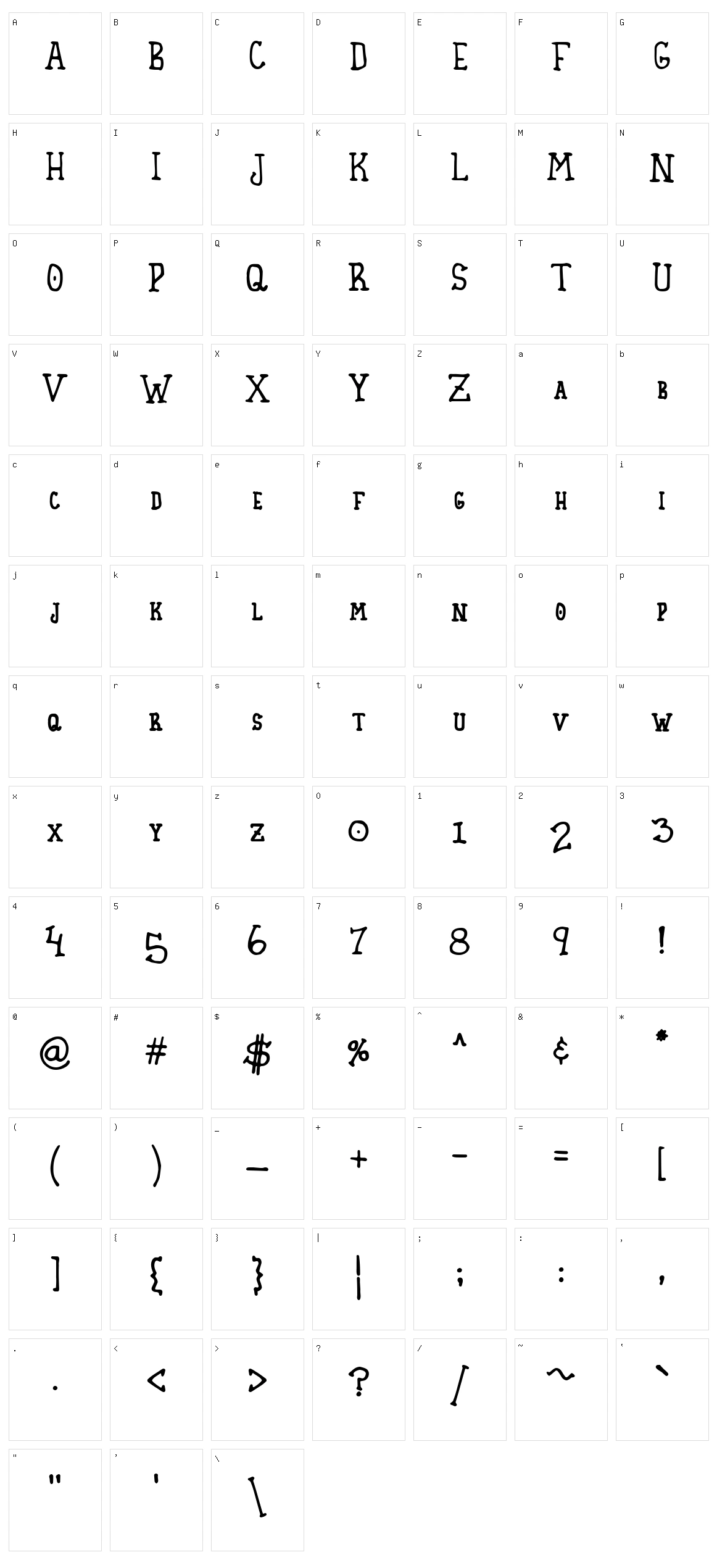
HOMESPUN
A TrueType Font by S. John Ross
Heres another cousin in the same friendly hand-drawn Roman family as Apple Butter and Atlas of the Magi. Like those, Homespun hails from hand-drawn masters created with a Sharpie laundry marker on ordinary notebook paper, then smoothed a bit to add warmth and remove the paper bleed. Homespun sits a little taller in the saddle than the earlier fonts, and comes in two versions: regular and small-caps. Homespun Small Caps is a genuine small-caps font, with proportionate line-weight between the uppercase and lowercase glyphs (which means the lowercase set looks a little chubby, but it was an experiment I learned from, so theres that).
Both are full-keyboard fonts with a few extras thrown in.